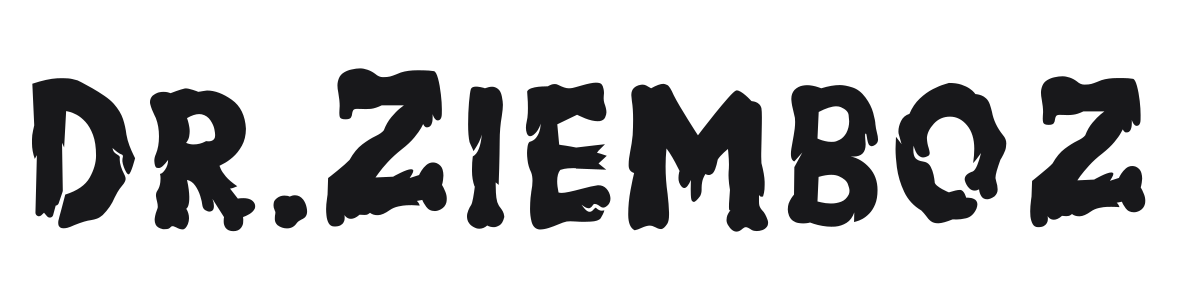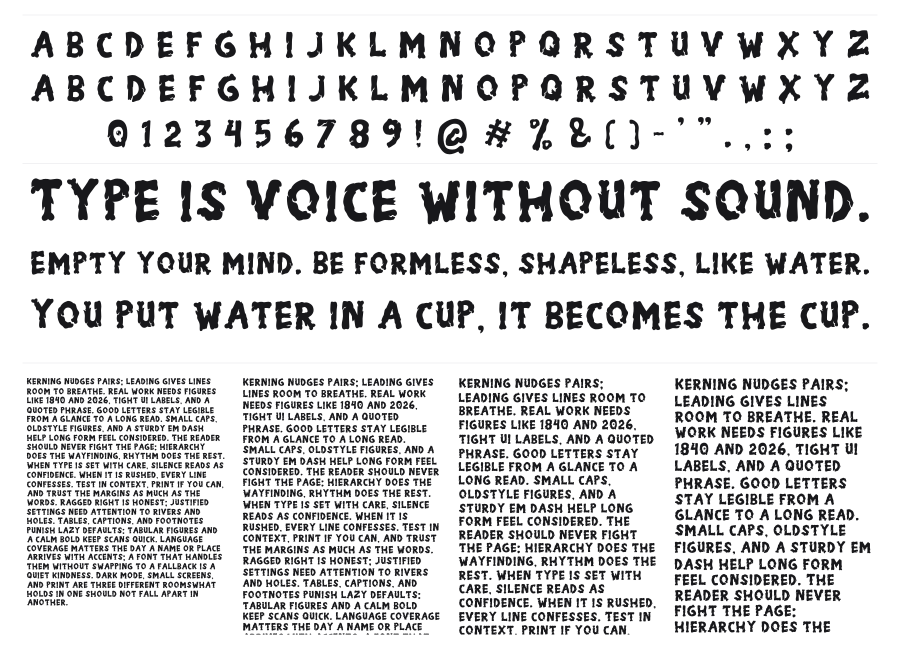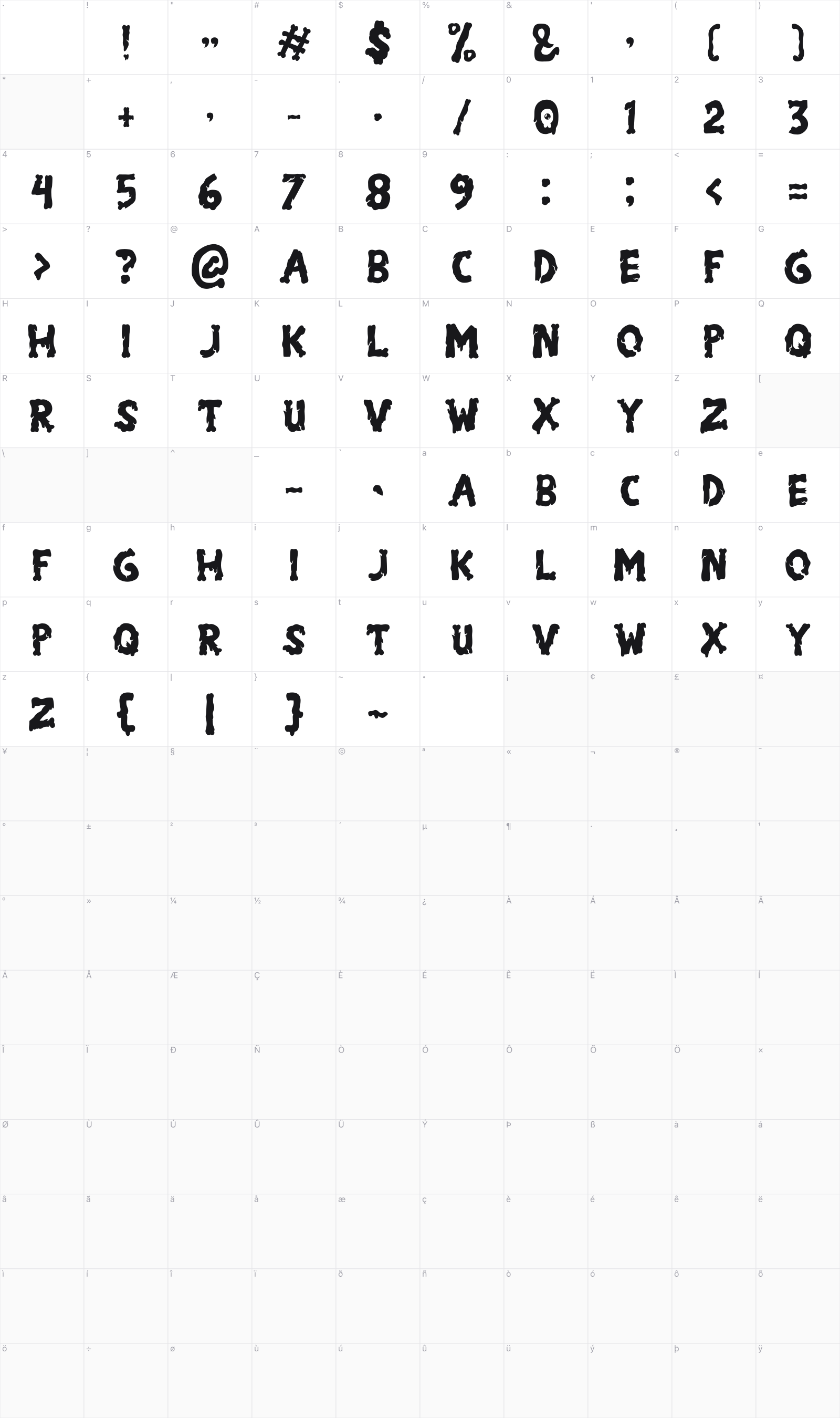
Dr.Ziemboz
Dr.Ziemboz is a bold distressed serif soaked in horror atmosphere, with characters that look corroded, dripping, and half-eaten by decay. Every stroke carries uneven edges, splatter marks, and organic erosion that sell the genre immediately. Built for posters, covers, and anything that needs a genuinely unsettling presence.